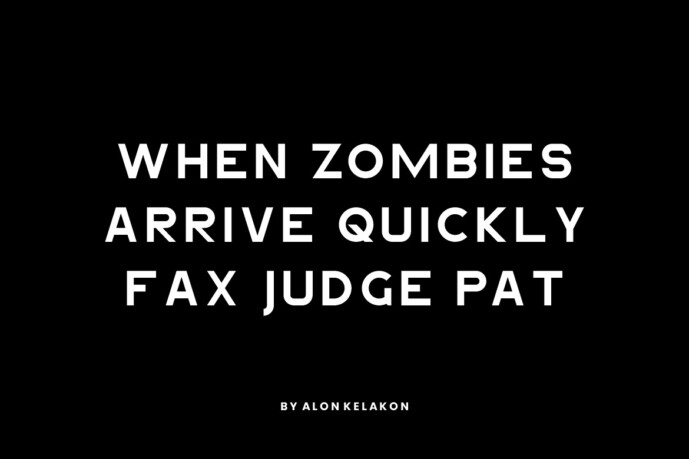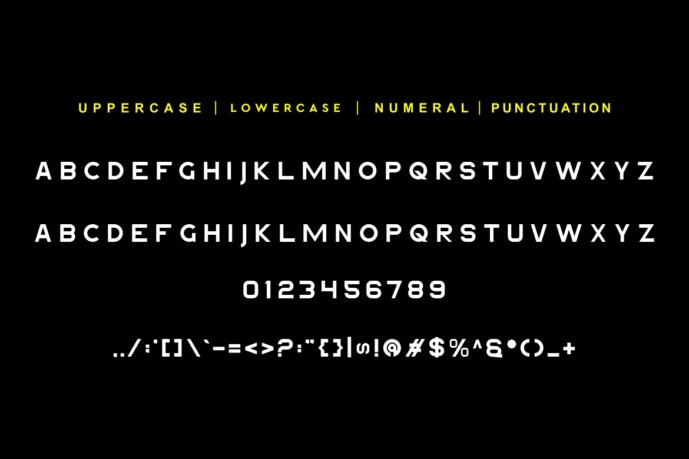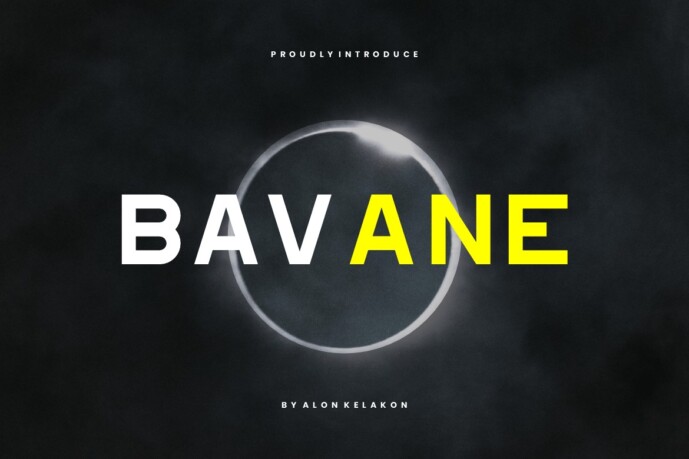
Bavane Font
Designer: alonkelakon
Bavane Font is unique. Ready to be used for your designs, such as labeling, movie scene, poster, movie title, concerts, album covers, logos and much more.